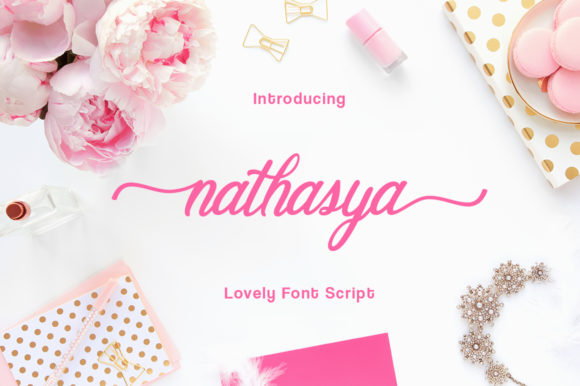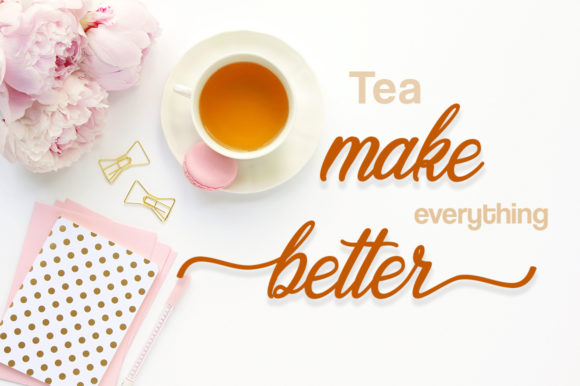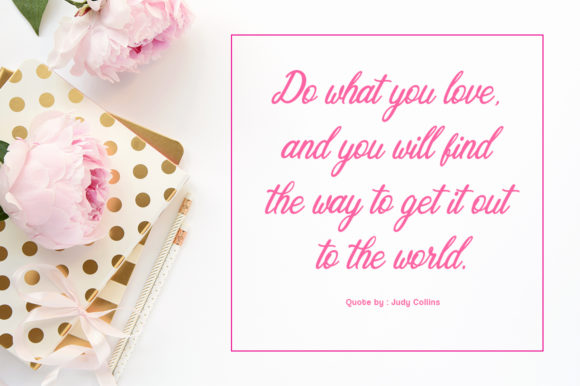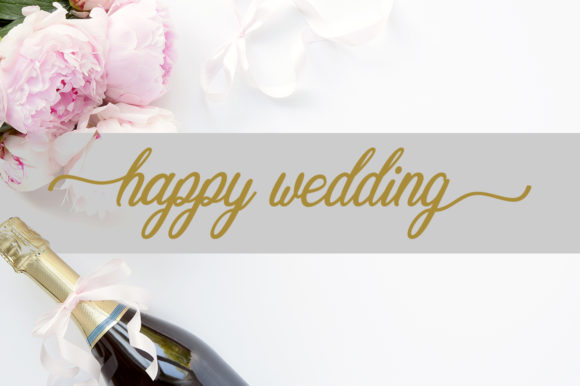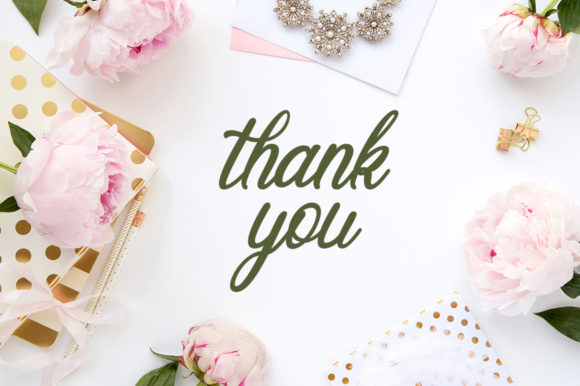
Nathasya Font
About Nathasya Font
Nathasya is a fresh & modern script that features a handwritten calligraphy style and is packed with decorative characters. It will add a romantic touch to any crafting project!